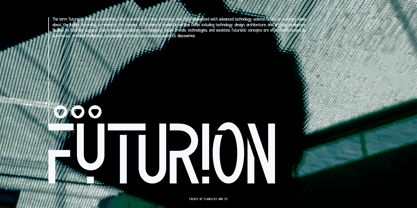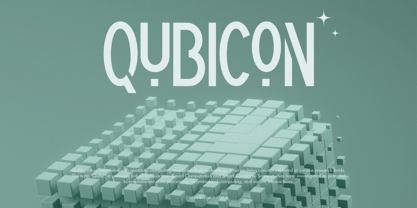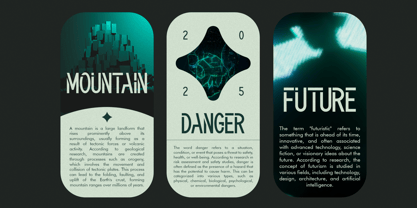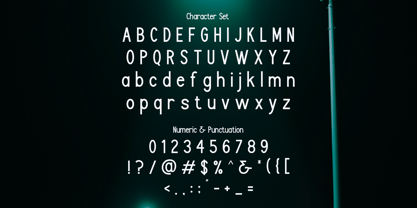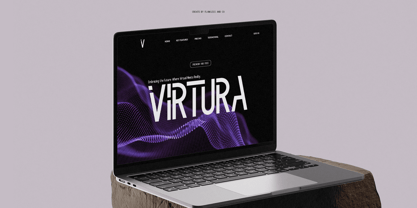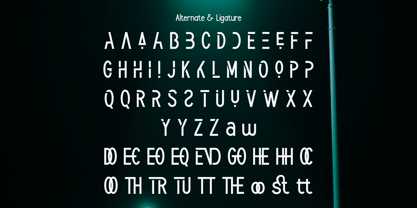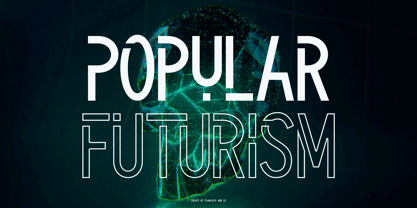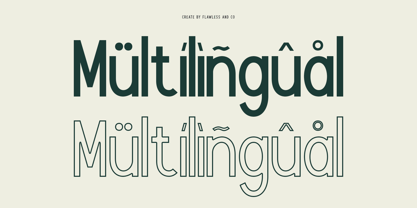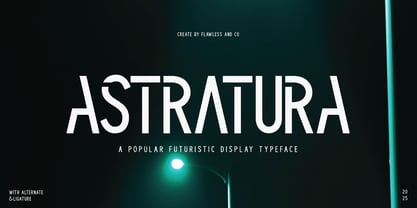
Astratura
by Flawlessandco
The Astratura Font Family was designed by Achmad Yani and published by Flawlessandco. Astratura contains 1 styles. More about this family
Astratura is a futuristic font that blends sleek, modern aesthetics with a cutting-edge design. Its bold structure and sharp edges make it perfect for technology branding, sci-fi movie titles, gaming interfaces, space-themed projects, futuristic posters, and digital designs. Let your creativity reach the future with Astratura. Features : Multilingual, Uppercase alphabet A-Z, Lowercase alphabet a-z, Numbers 0-9, Some punctuation NOTE: For all the characters are also available, accessible in the Adobe Illustrator Glyphs Panel, or in Adobe Photoshop Character Open Type Panel. If you need help, just write me! Thanks so much for checking out my shop!